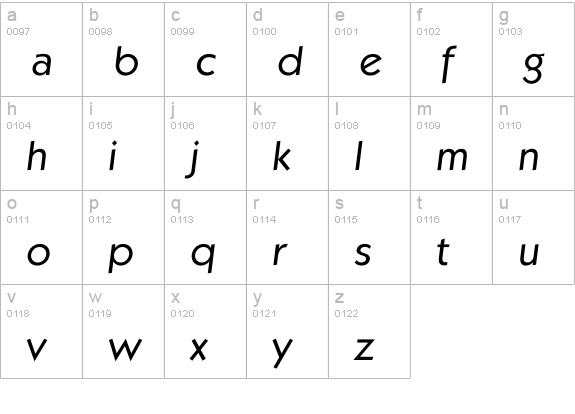
Ikabel Regular is the standard, neutral variant in the Ikabel typeface family \xE2\x80\x94 well suited to general body text, paragraphs, and standard typographic work.
Ikabel Regular is a visually stunning font that effortlessly combines modernity with elegance. Its sleek and sophisticated design is perfect for a wide range of projects, from branding and advertising to web design and print materials. With its clean lines and balanced proportions, Ikabel Regular exudes a timeless appeal that is sure to captivate audiences. What sets Ikabel Regular apart is not only its impeccable aesthetics but also its versatility. This font can be used for both headlines and body text, making it an excellent choice for creating cohesive and visually appealing designs. Whether you're designing a sleek corporate brochure or a trendy fashion magazine, Ikabel Regular will elevate your project to new heights. One of the best features of Ikabel Regular is that it is available for free download at FontsMarket.com. This means that you can enjoy the beauty and functionality of this font without any cost. FontsMarket.com is a trusted source for high-quality fonts, and their extensive collection ensures that you will find the perfect font for any project. Don't miss out on the opportunity to enhance your designs with the elegance and versatility of Ikabel Regular. Download this extraordinary font for free at FontsMarket.com and unlock a world of creative possibilities.